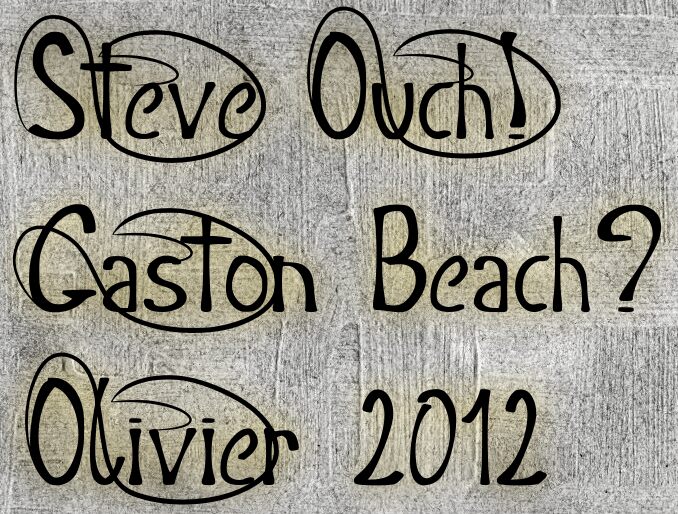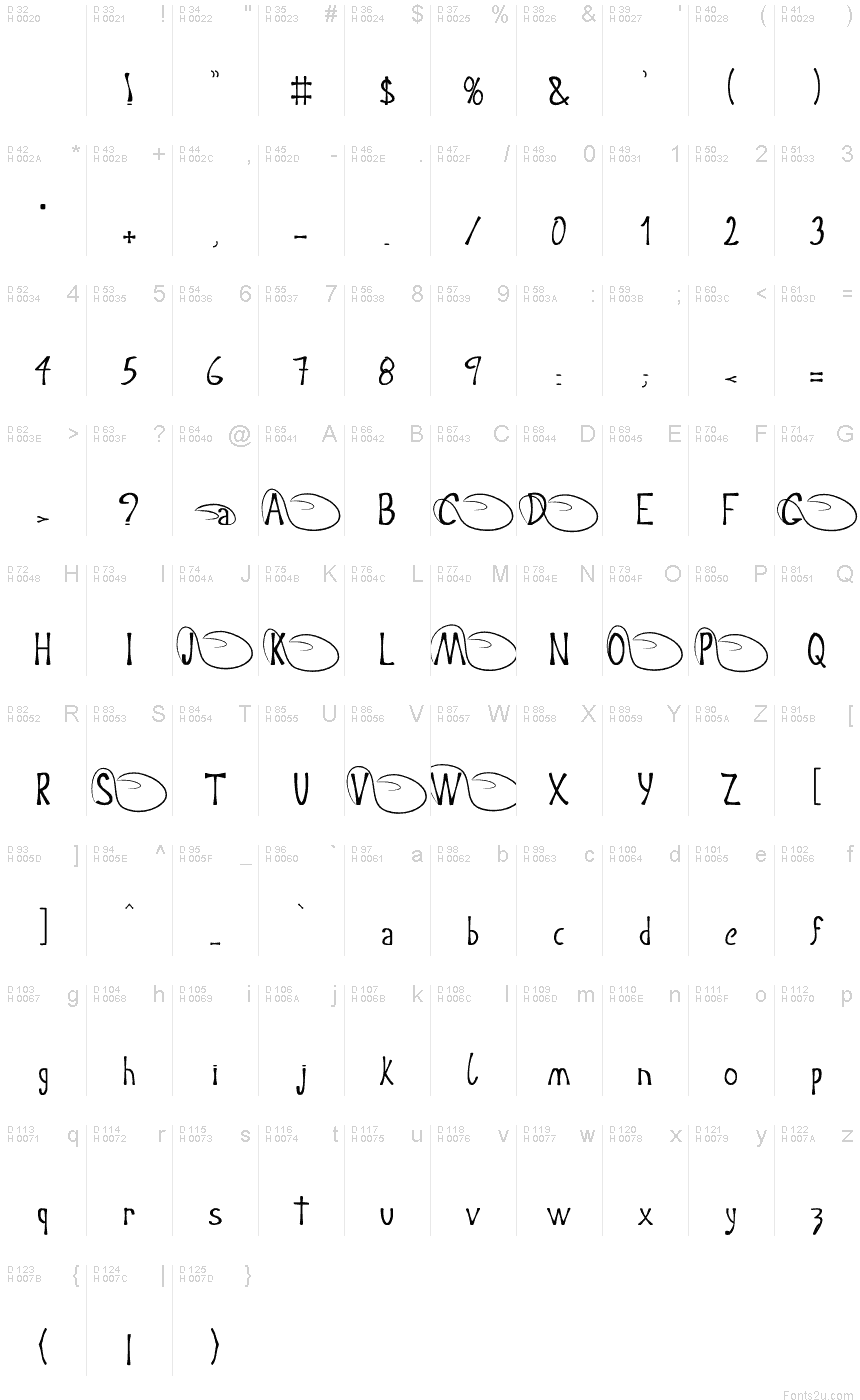
Crispy by D.L. of FontDen is a free graffiti font with loose, oversized loops that sweep through and around the letters. Its uneven strokes and crowded overlaps give the lettering the raw look of a fast marker tag.
Posters are its strongest setting, especially for streetwear launches or music events built around urban graphics. The restless linework can merge with scribbles, arrows, and spray-painted marks. Skateboard merchandise and album covers offer equally convincing homes for its unruly tag-like forms.